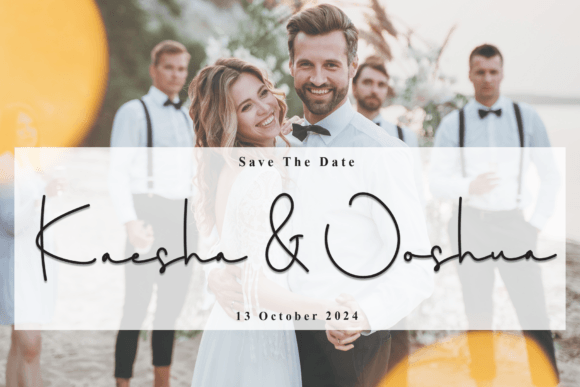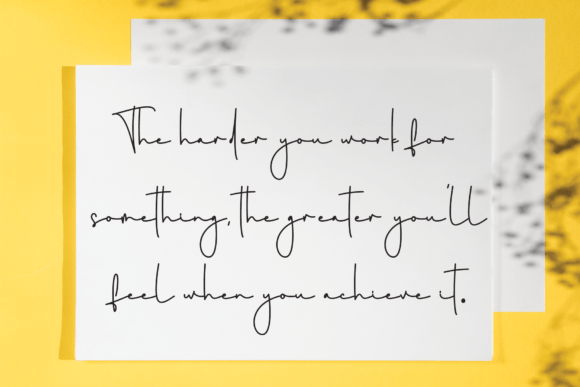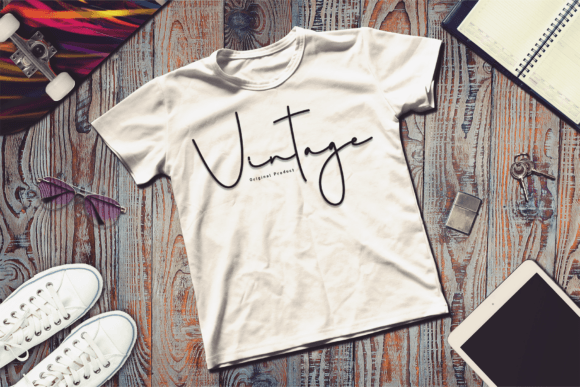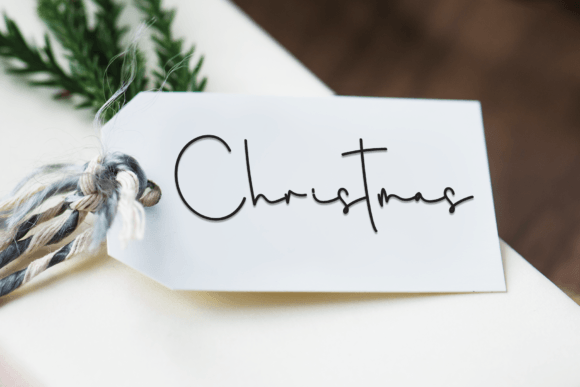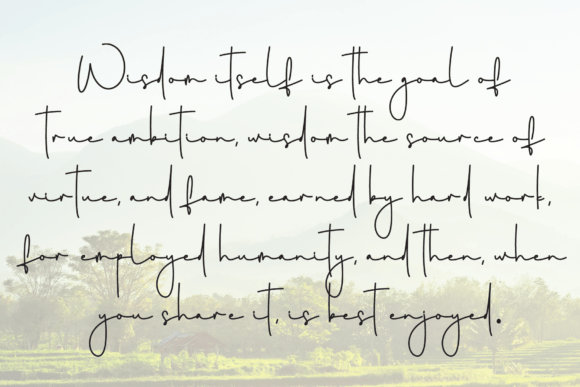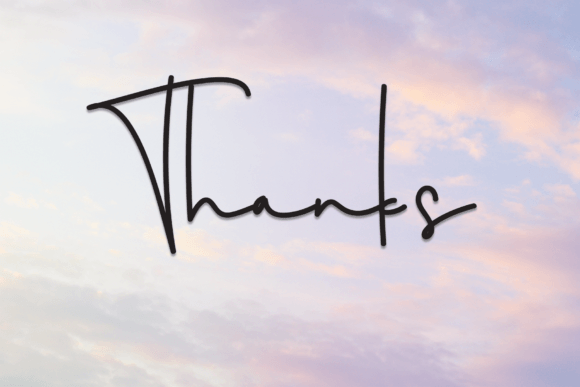
The Magic of Fantasy Font: Elevate Your Designs with Elegance
I’ll never forget the time I was working on a wedding invitation project, and my client asked for a font that would make their special day feel like a fairytale. I scoured the internet, tried countless fonts, but nothing seemed quite right. That was until I stumbled upon Fantasy Font. This stunning script font has been a game-changer for my designs, and I’m excited to share its magic with you! ✨
An Honest Review of Fantasy Font
- ✨ Elegant and stylish: Fantasy Font adds a touch of sophistication to any design.
- ✅ Highly versatile: Perfect for wedding invitations, thank you cards, quotes, greeting cards, logos, business cards, and more.
- 💫 Beautifully crafted: The font’s intricate details and flowing lines make it a true showstopper.
- 👍 Easy to read: Despite its ornate design, Fantasy Font remains surprisingly legible.
While Fantasy Font is an amazing addition to any design, there are a few things to keep in mind: 🤔
- ⚠️ Limited use in body text: Due to its script nature, Fantasy Font works best in short paragraphs or headings.
- ⚠️ May not be suitable for very small sizes: The font’s intricate details can get lost at smaller sizes.
- Experiment with OpenType features, such as glyphs and stylistic alternates, to add more personality to your text.
The Backstory of Fantasy Font
Fantasy Font was designed with the intention of capturing the essence of handwritten elegance. Its creator drew inspiration from classic calligraphy and modern script fonts, aiming to craft a font that would add a touch of sophistication to any design. 💫
Q: Is Fantasy Font suitable for body text?
While Fantasy Font is beautiful, it’s best used in short paragraphs or headings due to its script nature. For longer body text, consider using a serif or sans-serif font. 📖